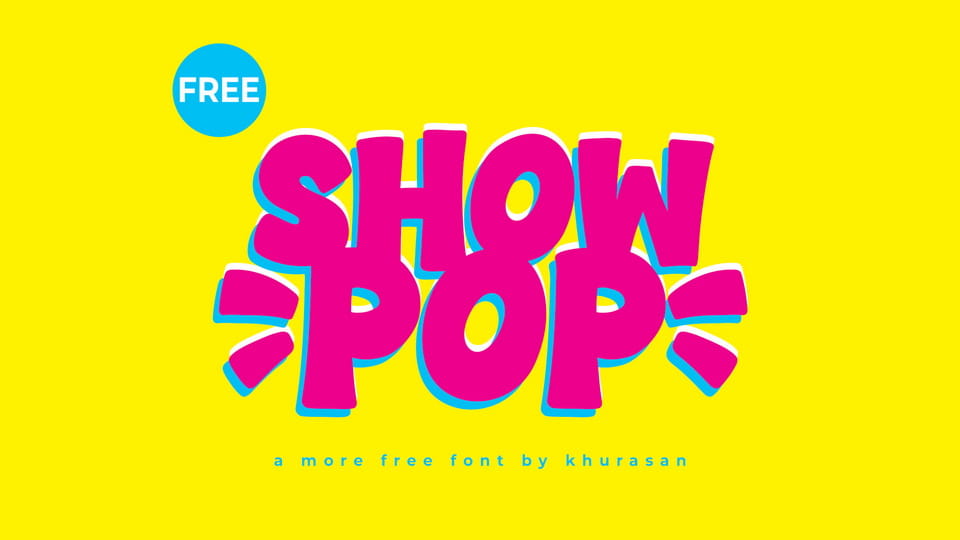
Download Showpop font, a bold, playful display typeface designed to bring energy and joy into any composition. Its chunky, rounded shapes and lively proportions create a fun and expressive mood, making it perfect for eye-catching headlines